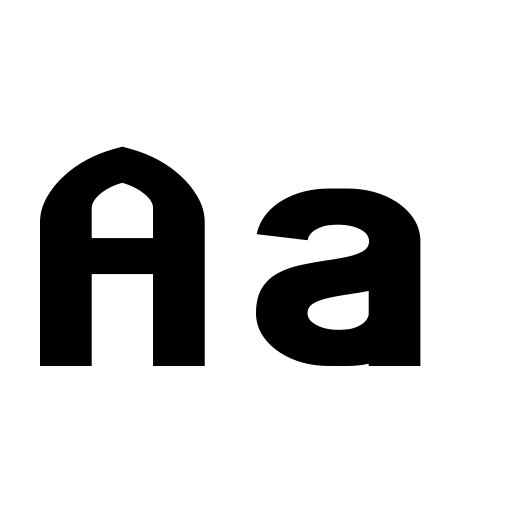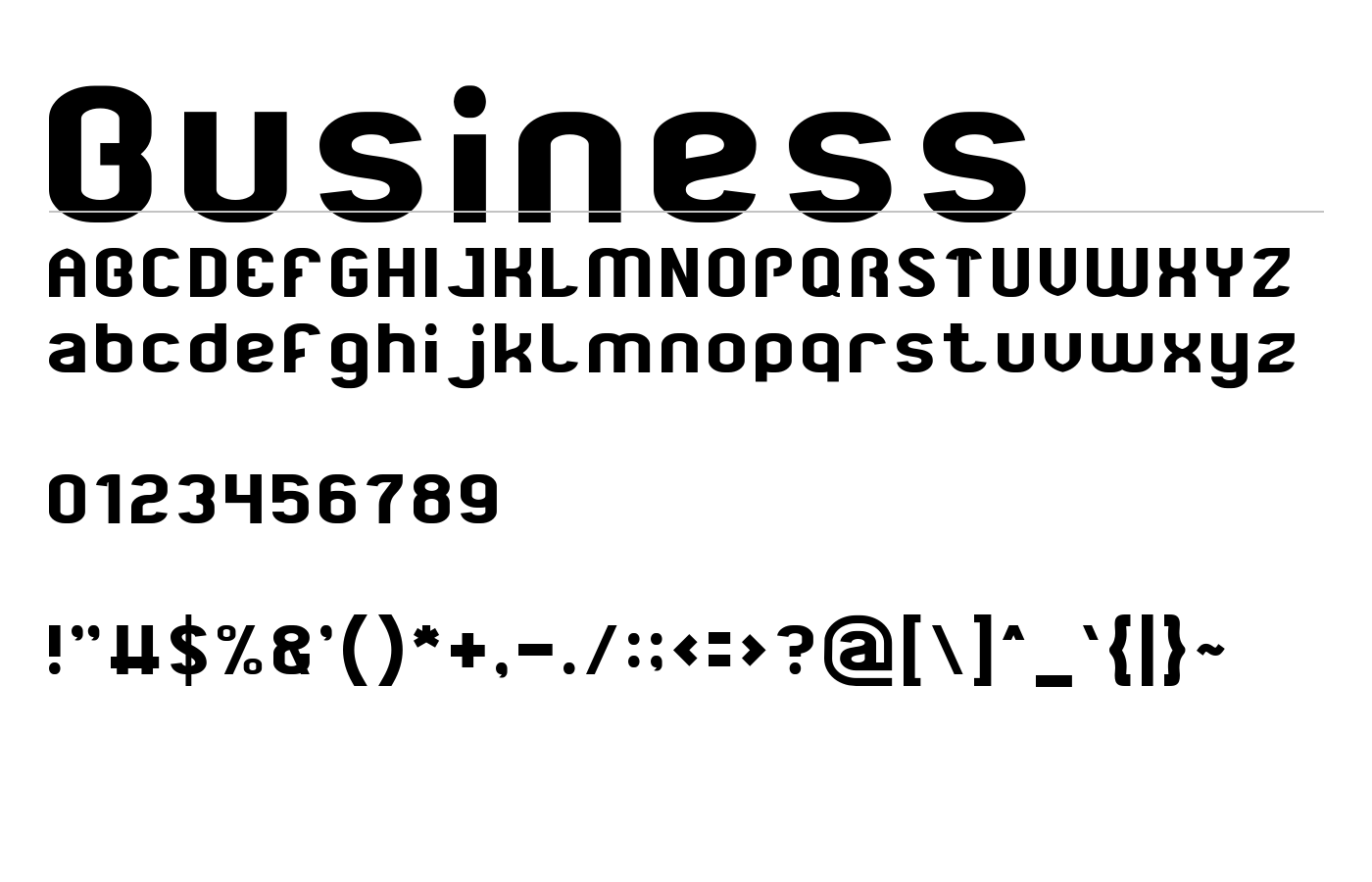
Business Font is a bold, geometric sans serif typeface with a contemporary and slightly industrial feel. Its strong, uniform strokes, single-story letterforms, and wide, open characters make it highly legible and perfect for modern branding, headlines, and editorial use where clarity and impact are essential. This font conveys a professional yet approachable tone, ideal for businesses looking to project confidence and modernity.
Business Font
About Business Font